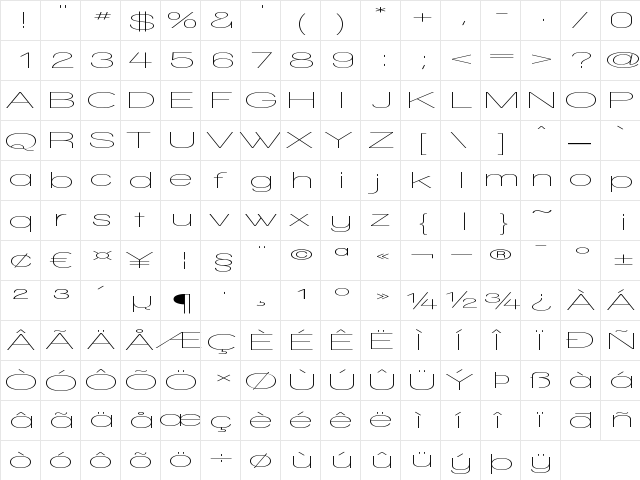
Walkway UltraExpand Regular
Design Context for Walkway UltraExpand Typeface
Walkway UltraExpand offers clean, dependable letterforms without strong stylistic allegiance, making it a practical choice for designers who need flexibility.